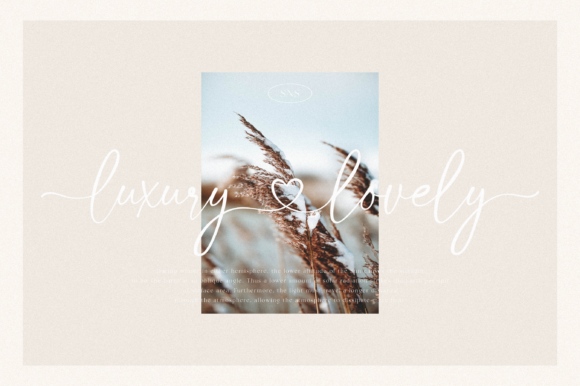
Bloom Winter Font
Bloom Winter is a delicate and elegant handwritten font. Its distinct and well rounded letters make this font a masterpiece. This font is PUA encoded which means you can access all of the glyphs and swashes with ease!